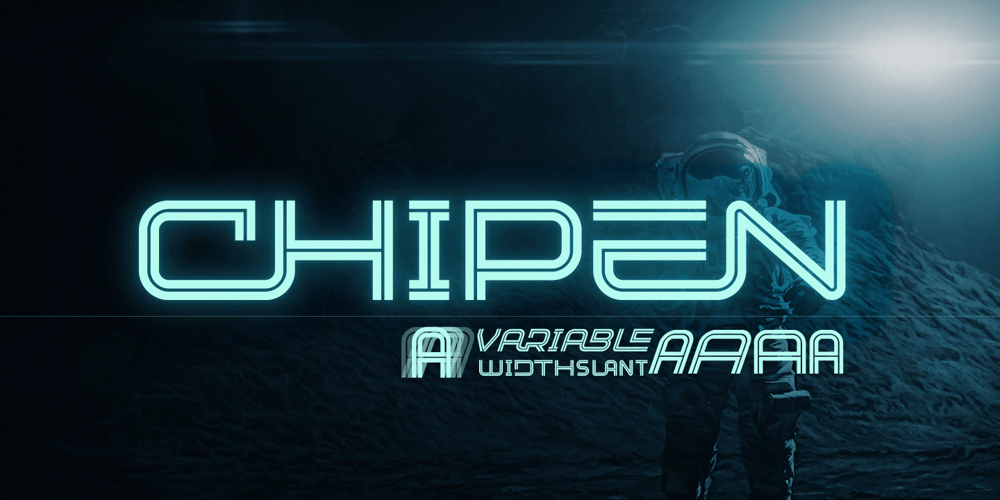
Chipen Font Family was designed by Muhammad Ridha Agusni and published by 38-lineart. Chipen contains 5 styles and family package options. I am pleased to present you an excellent futuristic font “Chipen” in unique graphic style!This font consists of regular, expanded, regular italic and expanded italic, these 4 fonts are encapsulated in one variable. With one font variable, this will cover 4 styles and cover all the weights between regular and expanded. If you are used to working with variable fonts it will give you more weight options, if you have never tried this variable font it will be an amazing new experience for you, take a look at this video snippet: https://youtu.be/jgqNPGeoVjcChipen comes in bold and with a “RoundCube” cut, this is perfect for modern, Sci-Fi, and technology themes. Coupled with the stripe in the middle of the makes it appear more sporty. Not only that, this stripe can also display “Eighties” if you package it in a retro concept.Another strength of this font is the lowercase ligature, we present a lot of ligatures and one of them might be suitable for your logo brand.Finally, this font is a dynamic font with a variable concept capable of covering more ‘weight’, unique to appearing in various eras, exploring the world of retro and even science and fiction.